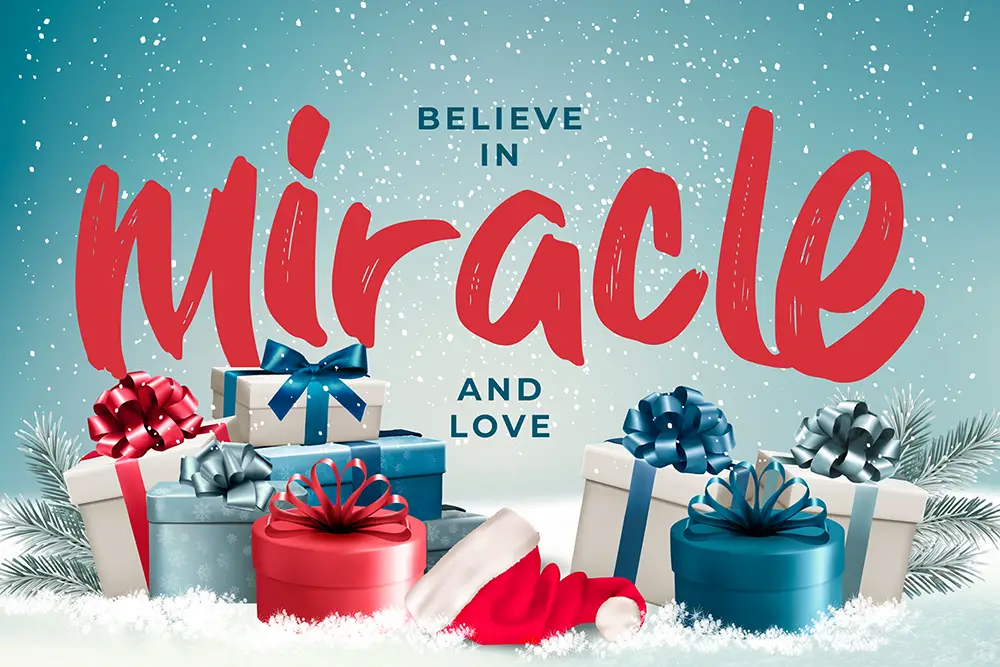
The holidays arrive with a swirl of deadlines, client expectations, and one simple request: “Make it feel warm.”
If you’re a designer, freelancer, or brand owner, choosing Winter Greeting Card Fonts is the fastest way to evoke that soft, hand-written humanity people crave when the weather turns cold. Use the right letterforms and suddenly a simple “Wishing you peace” reads like a hug in type.
Warmth starts with shape and rhythm. Round terminals, flowing connections, and subtle contrast—especially in handwritten or brush fonts—instantly cue human.
Clients often say they want “cozy,” but what they really want is clarity that feels human. Your Winter Greeting Card Fonts should be expressive in headlines and easy in body copy—one for emotion, one for readability. A handwritten or brush headline font paired with a modern sans or soft serif builds instant harmony.
Here are curated picks from the Figuree Studio catalog designed to bring warmth, rhythm, and authenticity to your winter greetings.
Perfect for romantic greetings, couple cards, and luxury invitations—its flowing ligatures and soft curves make every line feel personal.
Graceful and timeless, ideal for brand holiday cards and minimal stationery that need a touch of sophistication.
Delicate and charming—ideal for cozy family greetings, winter weddings, and personal thank-you notes.
Rounded, friendly letterforms bring a handmade glow to cover headlines and envelope designs.
Bold and rustic, this brush-stroke font captures the feeling of handwritten ink on textured kraft paper—perfect for artisanal winter cards.
Playful and uplifting, this bouncing font adds festive energy to kids’ greetings, family photos, and cheerful social templates.
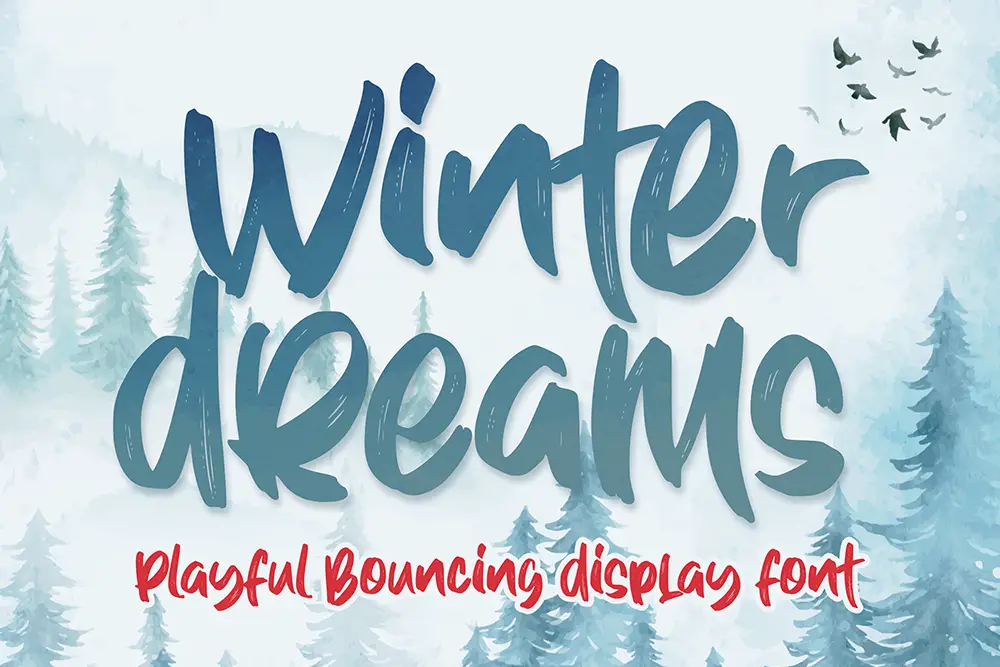
Refined yet approachable—ideal for boutique brands or warm seasonal campaigns that need both personality and polish.
Decorative yet legible, perfect for name signatures or brand taglines that feel naturally written.
Romantic, soft, and modern—a go-to for Season’s Greetings lines paired with cozy photography.
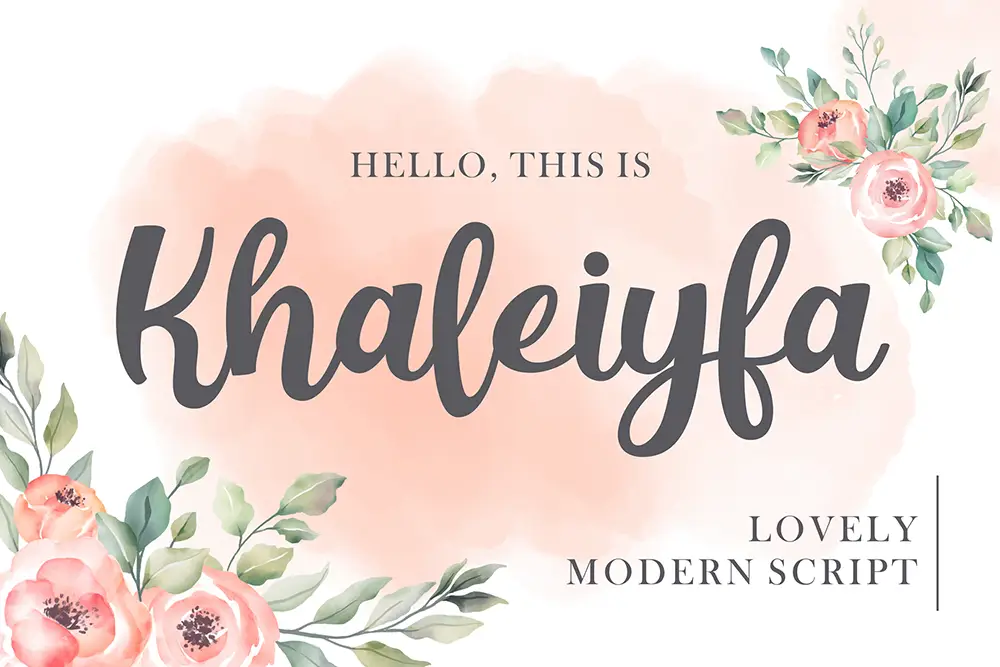
Sharp, trendy, and confident—great for party invites, youthful greeting cards, and modern brand collaterals.
Organic texture meets urban flow—ideal for rustic or hand-crafted card sets that feel tactile and real.
A script + serif pair that solves hierarchy beautifully—perfect for greeting card collections or editable Canva templates.
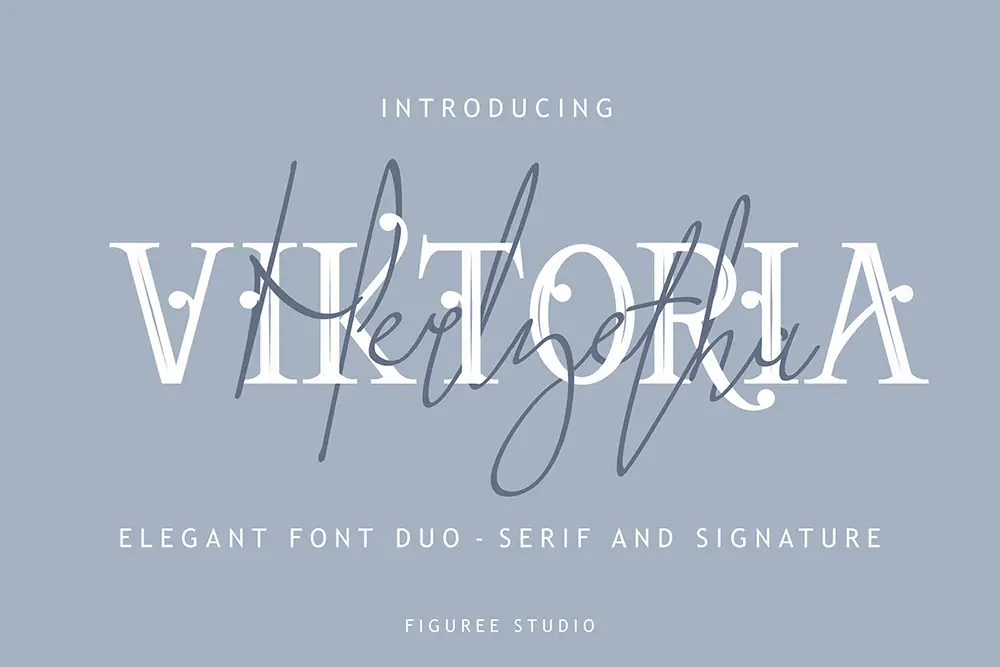
Rule of Two: One expressive script for headlines + one simple sans/serif for message text.
Try Radditya Signature for the greeting line and Midnight Workers – Modern Sans Serif for details like names or addresses.
For a livelier combination, pair Winter Dreams as your headline with Hadejah for subtext—playful meets elegant.
Remember: lighter inks can fade fine strokes on textured paper. Add a bit of tracking for small text, and keep line lengths short to maintain intimacy.
Design warms people when it feels thoughtful. In our own winter projects, short, sincere lines almost always outperform long ones—especially when written in Winter Greeting Card Fonts that feel handwritten yet polished. Leave space to breathe, and print on paper you’d want to touch.
A greeting card is a short story of connection. The right typeface tells it before the words do. Whether you’re setting a romantic wish in Augustha or a cozy note in Winter Dreams, every curve adds empathy.
The easiest way to make your greetings unforgettable is to pick Winter Greeting Card Fonts that match your message’s soul: soft scripts for love, brush strokes for authenticity, and balanced sans serifs for calm. Simplicity invites emotion.